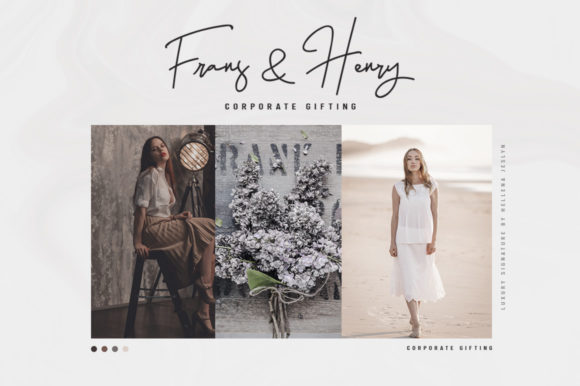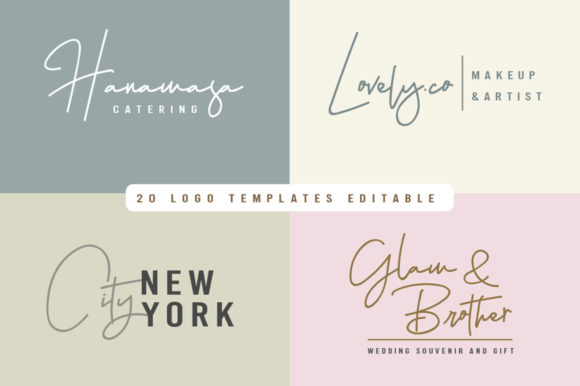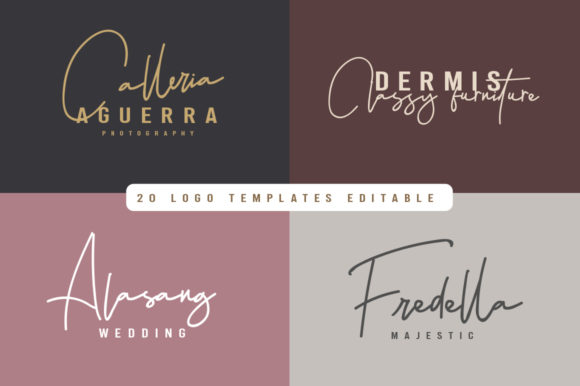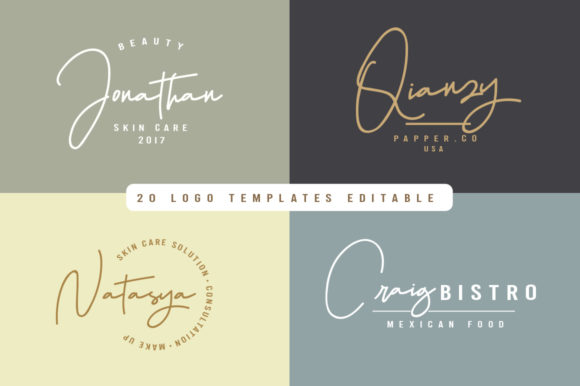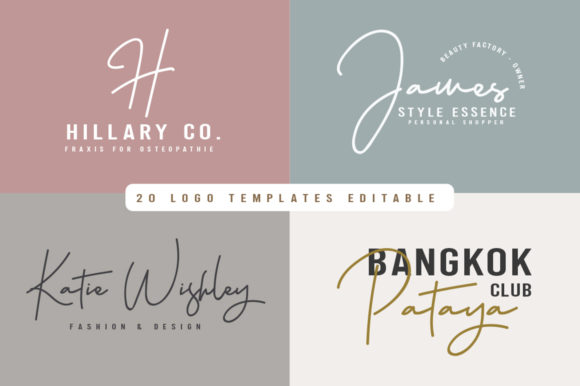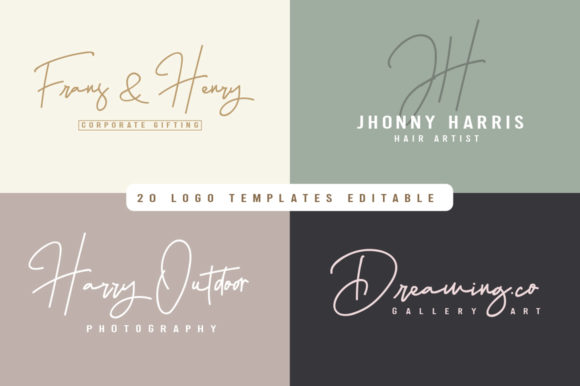
Unleashing Your Creativity with Hellena Jeslyn Duo Font
Enter the Hellena Jeslyn Duo Font, a match made in heaven consisting of a classy, fun signature script font and a stylish sans serif font. This dynamic duo allows you to create a wide range of unique designs with ease, making it a valuable asset for designers of all levels. Whether you’re working on a branding project, a marketing campaign, or a personal passion project, Hellena Jeslyn Duo Font is sure to help you unleash your creativity and take your designs to the next level.
Hellena Jeslyn Duo Font Key Features
- Font Family: Hellena Jeslyn Duo, a unique duo-tone font with two separate layers for creating various visual effects.
- Character Set: The font includes a wide range of characters, including uppercase and lowercase letters, numbers, punctuation marks, and special symbols.
- Unique Characteristics: The Hellena Jeslyn Duo font features a distinctive duo-tone design, allowing users to create striking visual effects by combining two different colors or textures.
Hellena Jeslyn Duo Font Review
Overall, I was pleasantly surprised by the Hellena Jeslyn Duo Font. It’s a beautiful, elegant script font that works well in both digital and print formats. ✨ One of the things I like most about this font is its versatility – it can be used for a wide range of applications, from wedding invitations to marketing materials.
- ✨ Elegant and refined feel that’s perfect for high-end designs
- ✨ Great for creating a sense of luxury and sophistication
- ✨ Highly customizable, with a range of options for adjusting the letter spacing and word spacing
- ⚠️ May not be the best choice for body text, as it can be difficult to read at smaller font sizes
- ⚠️ May not be suitable for informal or playful designs, as it has a more formal tone
Overall, I think the Hellena Jeslyn Duo Font is a great choice for designers who want to add a touch of elegance and sophistication to their designs. While it may have some limitations, it’s a versatile and highly customizable font that’s worth considering for a wide range of applications.
For best results, use Hellena Jeslyn Duo Font for titles, headings, and emphasis. This font is ideal for creating a elegant and sophisticated look.
Hellena Jeslyn Duo Font is ideal for:
- Editorial and literary publications
- Special occasion graphics and designs